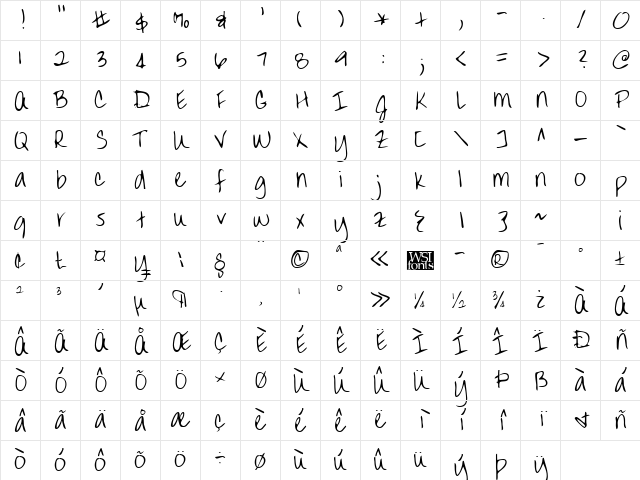
MandysHand Regular
Design Context for MandysHand
MandysHand flows with the natural rhythm of handwritten lettering, making it ideal for designs that call for warmth and personal expression.
Font Pairing: Combine MandysHand with a simple geometric sans for maximum contrast - the tension between flowing curves and clean structure is a classic typographic pairing.
Pro Tip: Use MandysHand for short runs of text - names, titles, or taglines. Extended body copy in script faces tires the eye quickly.